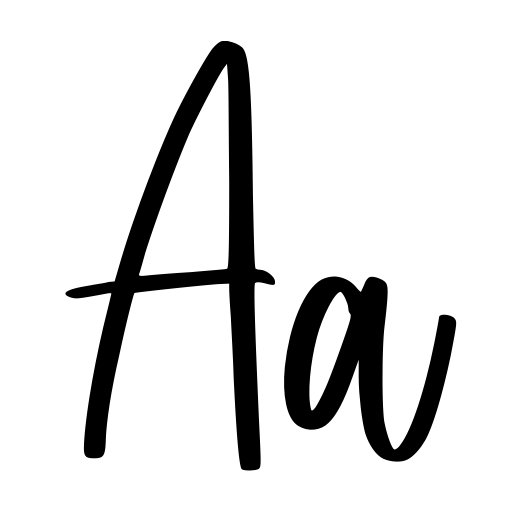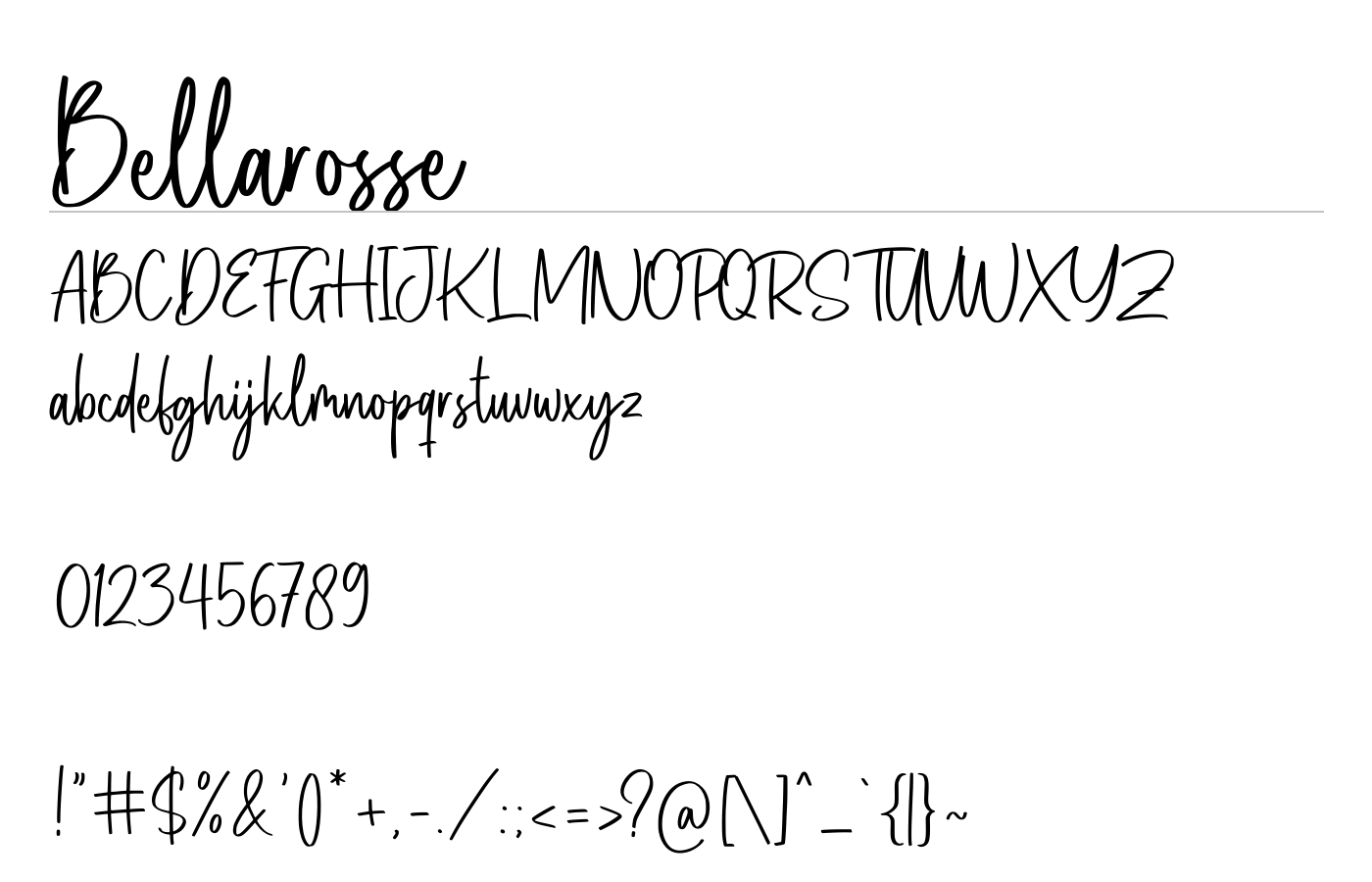
Bellarosse is a casual, hand-drawn script font that features tall, slender letterforms with a playful, slightly irregular flow. Its delicate strokes and whimsical style make it ideal for creative branding, invitations, and personal projects where a friendly, approachable feel is desired. This font works beautifully in headlines and logos that need a touch of charm and individuality.
Bellarosse Font